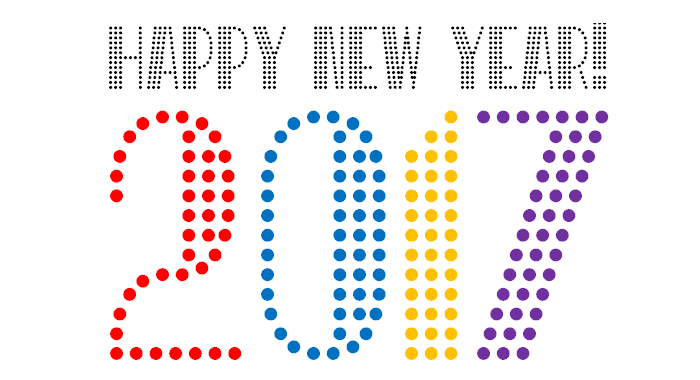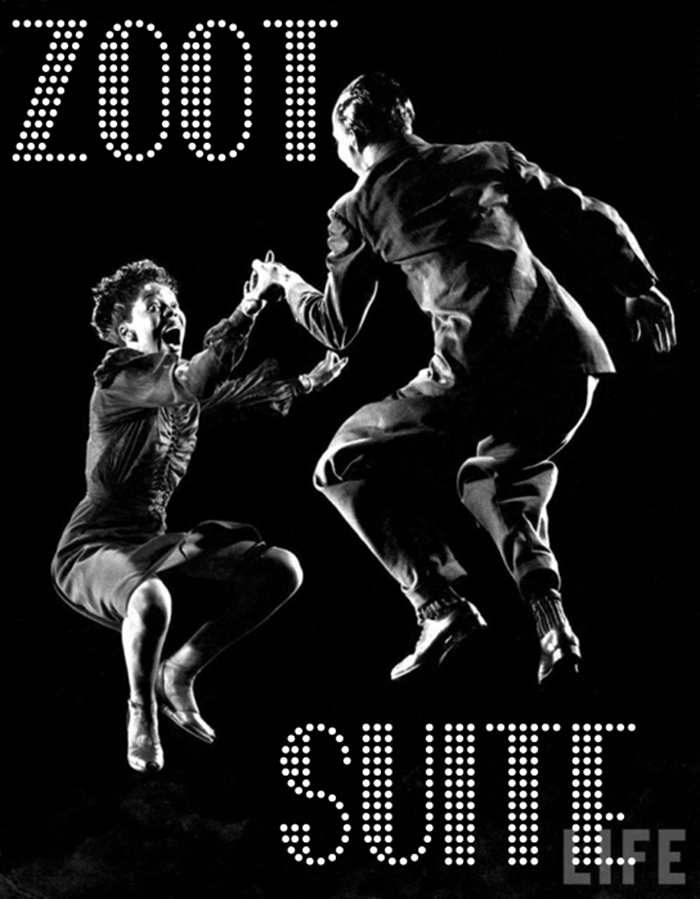
• it's a dotty deco. the name is a play on zoot suit. i did the uc and was satisfied that it worked as a display font. i had a bunch of lc dot fonts in the trunk and decided to pair up a few to see how they looked together. all share the same uc. that's the zoot suite.
@funk_king - What a happy collection of dots.  Congratulations!
A lovely deco-dot font!
Fabulous dot font with the hallmarks of art deco from the 1920s and 30s. I guess, this is "deco-dot" style. Equally remarkable your demo poster with a pair of lindy hoppers from the same period. I wish, I could have started the new year with such a spirited dance (and pretty partner ; )  10/10
Awesome dot fontstructiom.
a remarkable work here, love it
A refreshing take on dot fonts. It really makes full use of the improved nudging feature to get every dot its desired place.